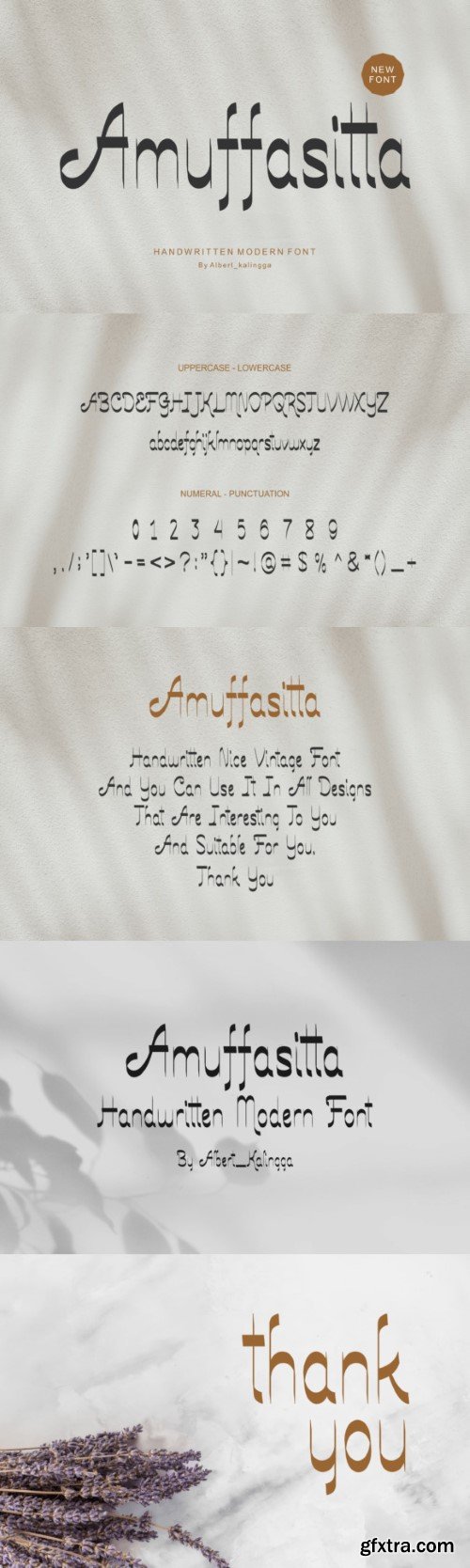
阿 muffasitta 字体
Introducing our new product **Amuffasitta Font** – Modern Font
**Amuffasitta Font** – Modern Font is a bold and authentic display font. The font is suitable for any branding project like logo, esport, and many more. outstanding in a wide range of contexts.